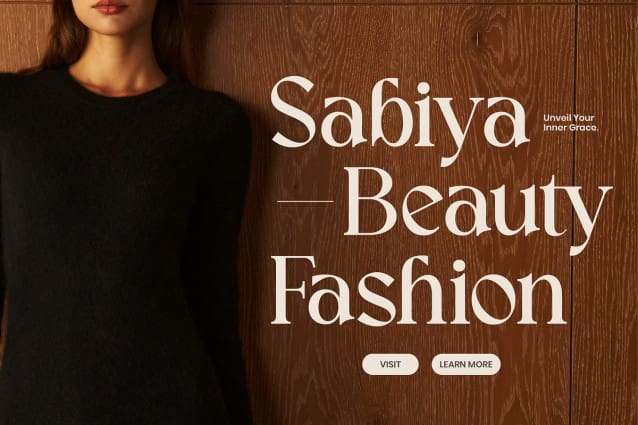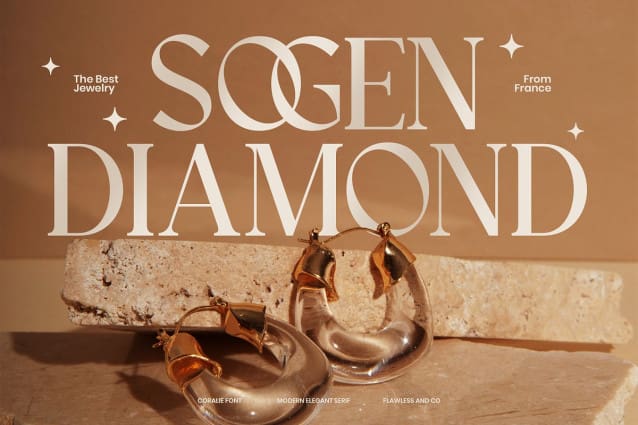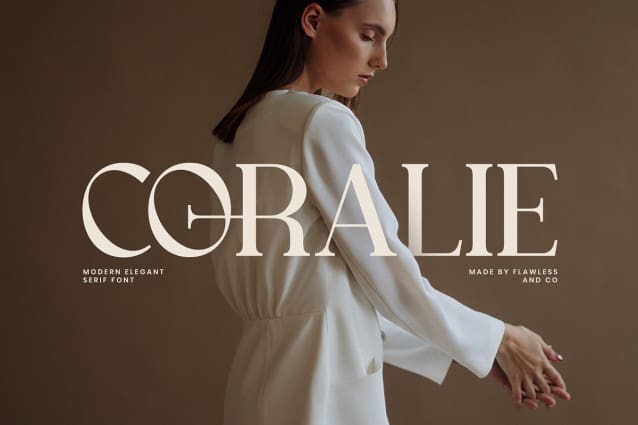
Coralie Font
Coralie Font is a modern elegant serif font that embodies sophistication and grace in every curve. Designed to bring timeless beauty and contemporary flair together, Coralie exudes confidence and refinement — making it the perfect choice for luxury branding, editorial designs, fashion projects, and stylish product packaging. With its clean letterforms, unique ligatures, and smooth contrast between thick and thin strokes, Coralie adds a touch of elegance and modern professionalism to any visual identity. Whether used for logos, magazines, invitations, or social media designs, Coralie enhances your project with a sense of class and femininity.